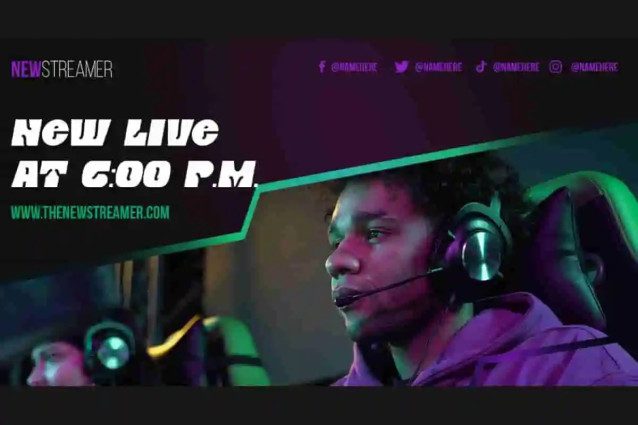
Wac Man Font
Wac Man Font is a modern creative racing display font, by RaisProject. This font has a casual character, but has small curved lines that make it more unique. It will be good for stationery, custom design, label, poster, invitation, signage, cover, menu, brand image, product packaging, quotes, web, and more!
Introducing Wac Man Display Font – a bold, retro-inspired typeface that brings back the fun, energy, and nostalgia of classic arcade and vintage gaming culture. With its playful yet powerful letterforms, Wac Man is perfect for projects that need a touch of excitement, personality, and unforgettable charm. Whether you’re working on gaming graphics, posters, merchandise, or creative branding, this font ensures your designs stand out with style.
Wac Man Display Font blends retro vibes with modern versatility, making it ideal for logos, packaging, event promotions, advertising materials, and digital content. Its unique design instantly captures attention, giving your projects a lively and energetic look that resonates with audiences of all ages. Perfect for retro gamers, esports visuals, or entertainment brands, Wac Man adds a sense of character and nostalgia to every creation.